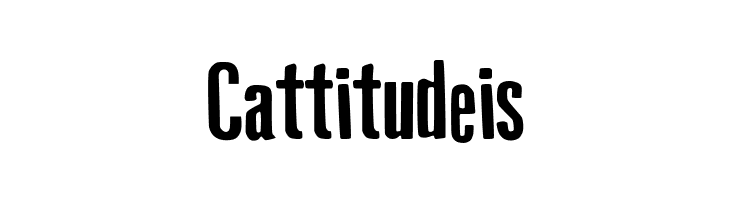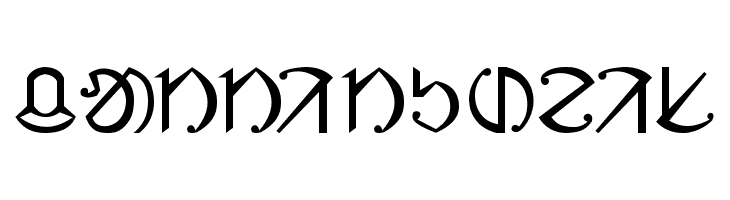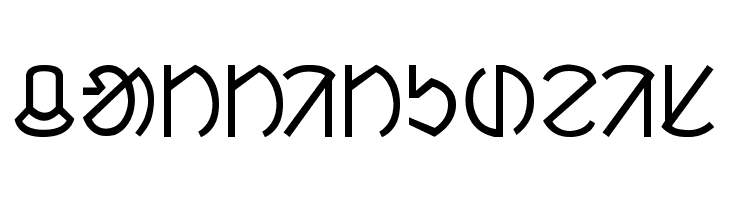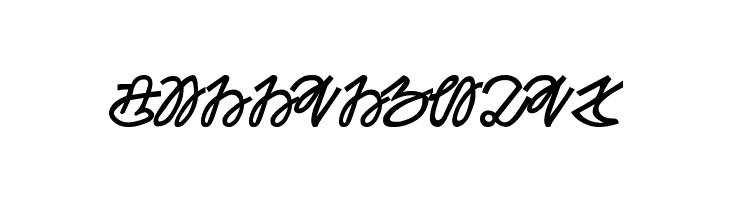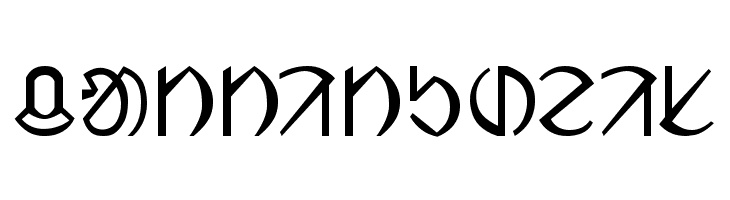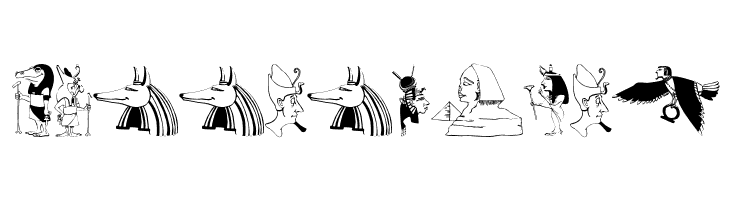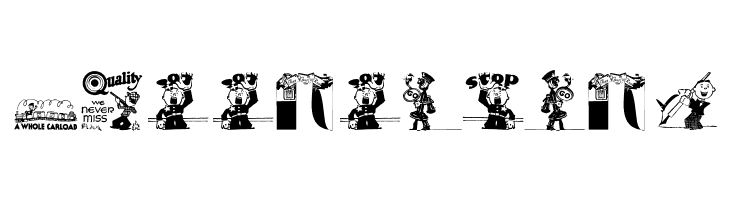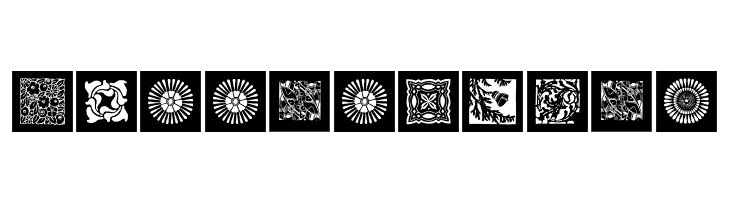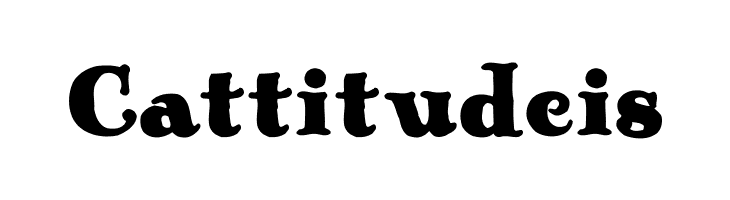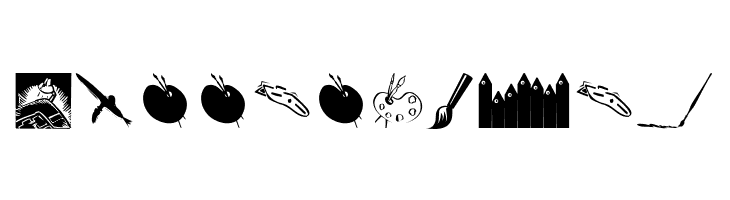
A playful, modern font with rounded, smooth letterforms and a friendly aesthetic.
A bold, modern font with clean lines and a slightly condensed style.
A bold, modern font with thick, uniform strokes and strong presence.
A bold, italicized font with a dynamic and energetic style.
A modern italic font with sharp lines and a dynamic slant.
A bold, jagged font with sharp, angular edges and a dynamic, aggressive style.
Ornate vintage ornament borders with intricate detailing.
A bold, vintage-style font with tall, condensed characters and consistent stroke thickness.
A decorative font with vintage advertising illustrations and a playful, retro style.
A collection of vintage American-themed symbols and illustrations.
A bold, gothic-inspired font with sharp, angular lines and strong presence.
A bold, italicized font with sharp, angular, calligraphic influences.
A classic italic font with elegant curves and sharp serifs, reminiscent of traditional calligraphy.
A blackletter font with sharp, angular strokes and a medieval aesthetic.
A bold, decorative font with vintage charm and high contrast strokes.
Ornamental, tile-based decorative font with vintage art motifs.
Ornate dingbat font with illustrations of traditional arts and crafts.
A pictorial font composed of art tool and artist-themed icons.
A decorative font with intricate bird and nature-inspired designs.
A pictorial font featuring diverse bird illustrations as glyphs.
Ornamental font with vintage bird illustrations in circles.
Military and aviation icon dingbat font with bold, detailed symbols.
Hand-drawn castle illustrations form each character in this decorative display font.
Vintage illustration dingbat font with diverse, detailed drawings.
A decorative font with cartoonish Egyptian-themed illustrations.
A decorative font inspired by ancient Egyptian hieroglyphs and symbols.